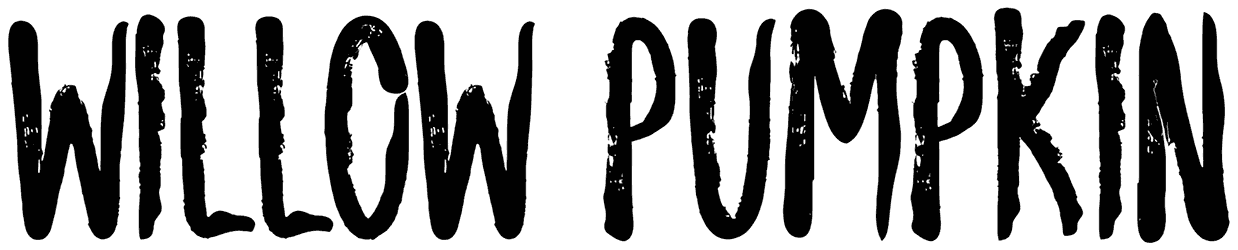
Willow Pumpkin Font
When it comes to bringing a frightful, creepy impression, nothing can stand your project out from the rest like a handmade grunge Halloween font. Willow Pumpkin has a quirky vibe and doesn’t support lowercase letters and numbers. This horror font looks great for horror movie posters, scary books, T-shirt prints, artwork designs, advertisements, or every context that needs a natural touch.